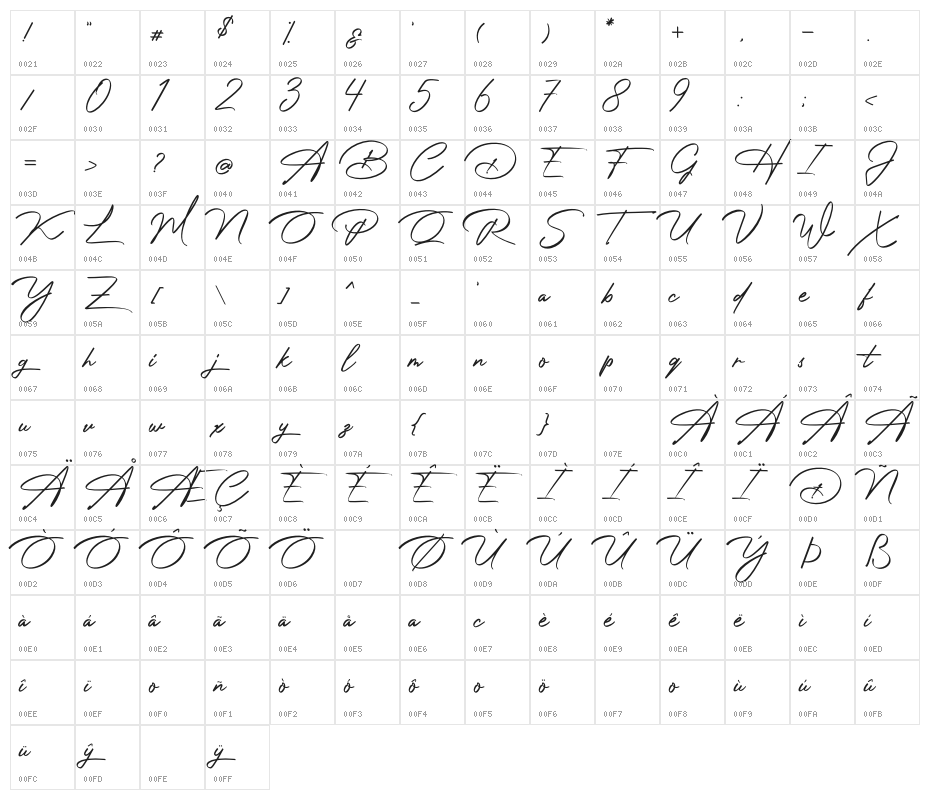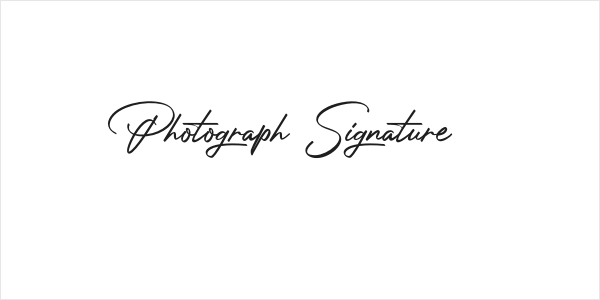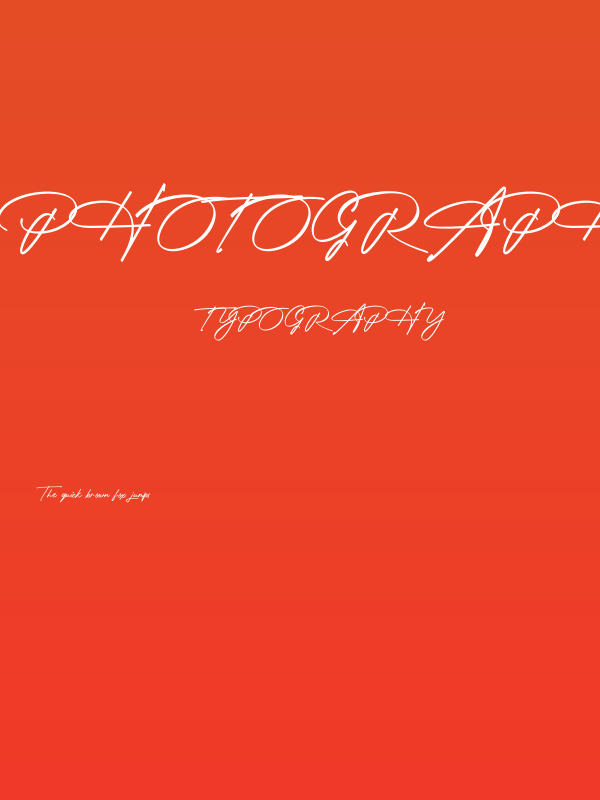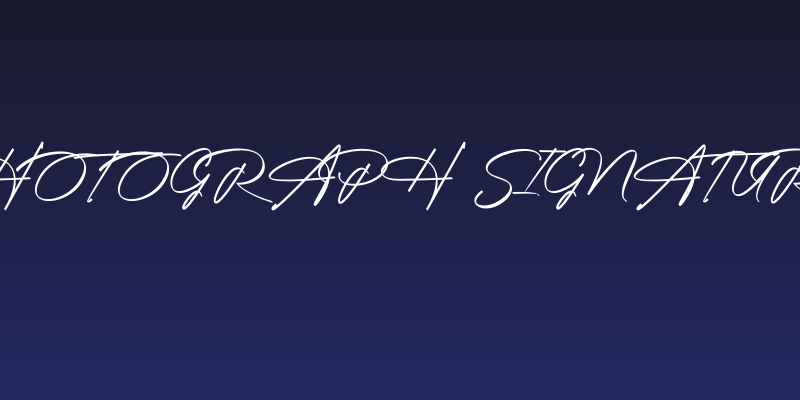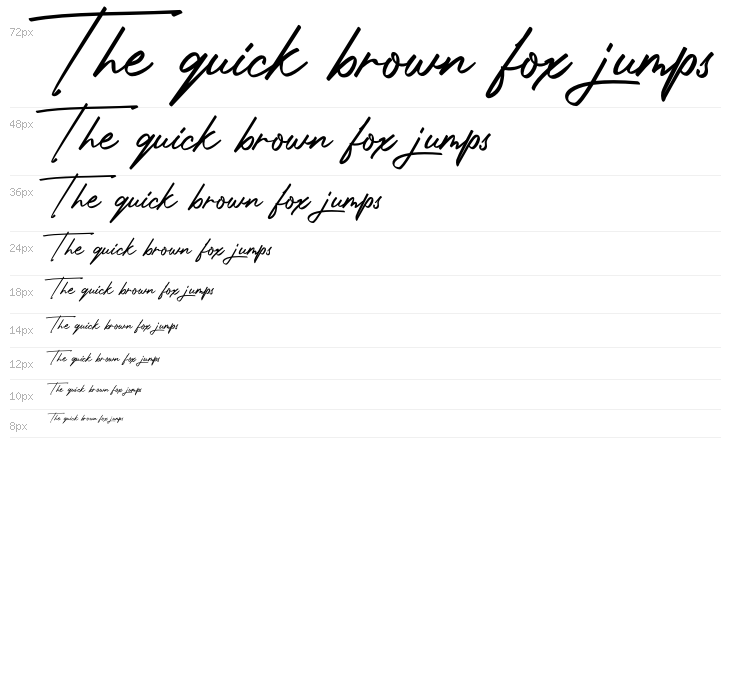
Photograph Signature Font
Photograph Signature Description
This font exudes a sophisticated and elegant style, reminiscent of a carefully crafted signature. The letters are connected in a fluid, cursive manner, giving it a personal and handwritten feel. The uppercase letters are slightly more formal, with graceful loops and curves, while the lowercase letters maintain a consistent flow. The numerals are distinct yet harmonize well with the overall script style. Special characters are thoughtfully integrated, maintaining the font's cohesive aesthetic. This font is perfect for projects that require a touch of elegance and personal flair.
| Overall Style | Elegant |
| Use Case | Logos, Invitations, Personal Branding |
| Proposed Projects | Ideal for wedding invitations, personal branding, logo design, and elegant stationery. |